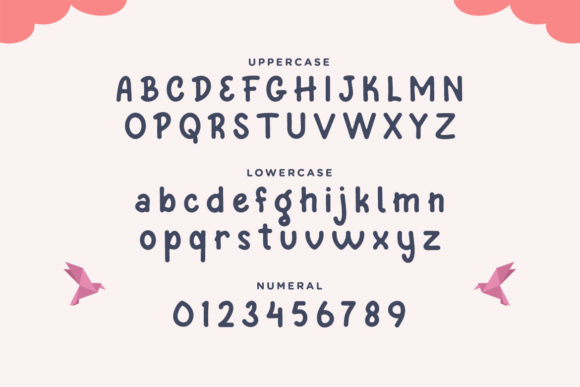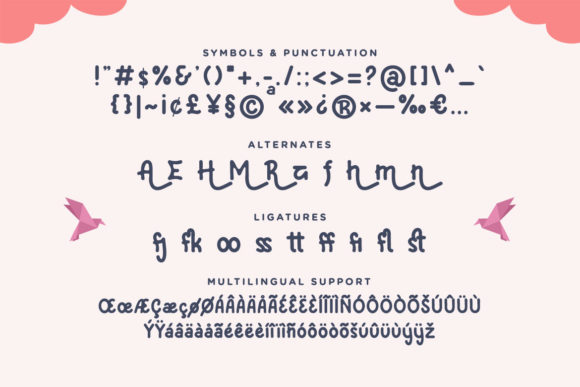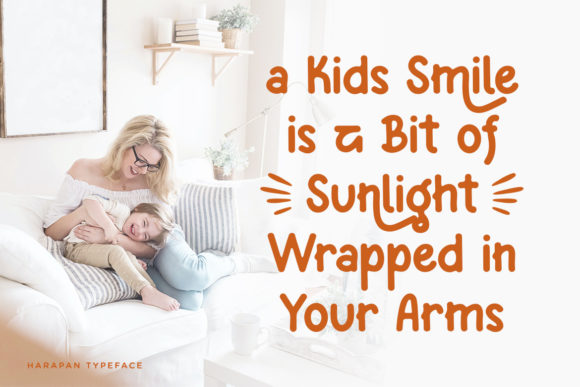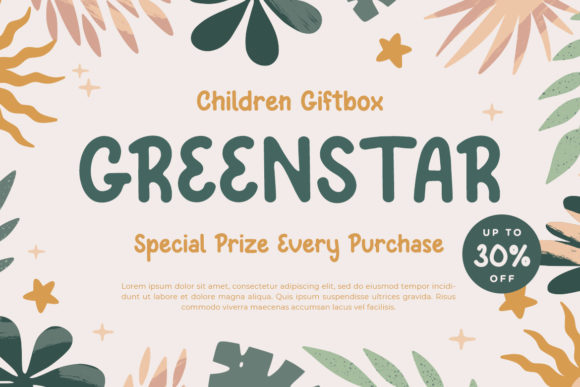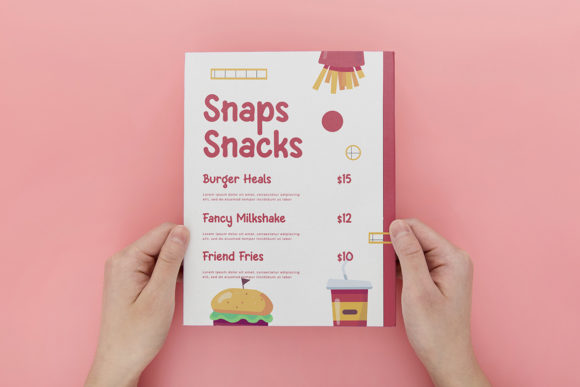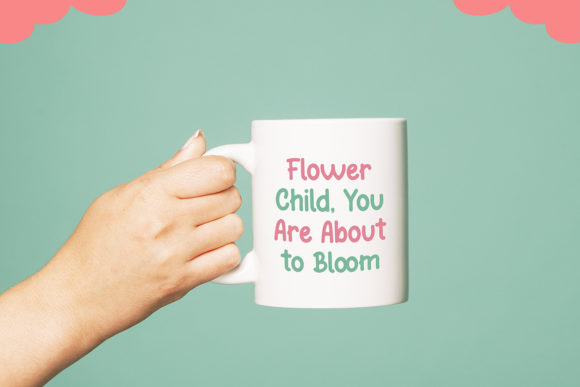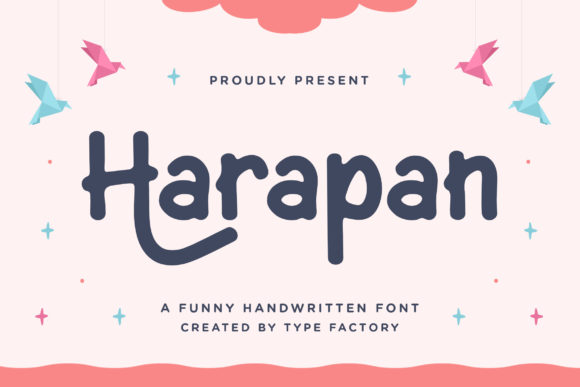
Introducing Harapan Font: The Ultimate Choice for Fun and Modern Designs
Are you a designer or crafter looking for a font that can add a touch of playfulness and modernity to your projects? Look no further than Harapan Font! This carefully handcrafted handwritten font is designed to become a true favorite among designers and crafters who want to create engaging and fun designs for kids and adults alike.
What Makes Harapan Font Special?
Harapan Font is a unique and quirky font that is perfect for kids-themed designs, such as coloring books, birthday invitations, playgrounds, kids show events, and many more. Its funny and modern style is sure to capture the attention of your audience and leave a lasting impression. The font is carefully crafted with attention to detail, ensuring that each letter and character is beautifully designed to create a cohesive and visually appealing look.
Perfect for Kids-Themed Designs
Harapan Font is specifically designed with kids in mind, making it the perfect choice for designers and crafters who create materials for children’s events, products, and activities. The font’s playful and energetic vibe is sure to delight kids and parents alike, making it an excellent addition to any kids-themed design project. Whether you’re creating a coloring book, birthday invitation, or flyer for a kids show, Harapan Font is the perfect choice.
Key Features of Harapan Font
- Carefully handcrafted handwritten font
- Funny and modern style
- Perfect for kids-themed designs
- Great for coloring books, birthday invitations, playgrounds, kids show events, and more
- Unique and quirky design
- Attention to detail for a cohesive look
Tips for Getting the Most Out of Harapan Font
To get the most out of Harapan Font, try pairing it with other playful and modern design elements, such as bright colors and fun graphics. You can also experiment with different font sizes and styles to create a unique look that suits your design needs. Additionally, consider using Harapan Font in combination with other fonts to create a visually appealing contrast.
Harapan Font is a fantastic addition to any designer’s or crafter’s toolkit. Its unique and quirky design makes it perfect for kids-themed designs, and its funny and modern style is sure to delight audiences of all ages. With its ease of use and versatility, Harapan Font is an excellent choice for anyone looking to add a touch of playfulness and modernity to their designs.
Get Ready to Fall in Love with Harapan Font!